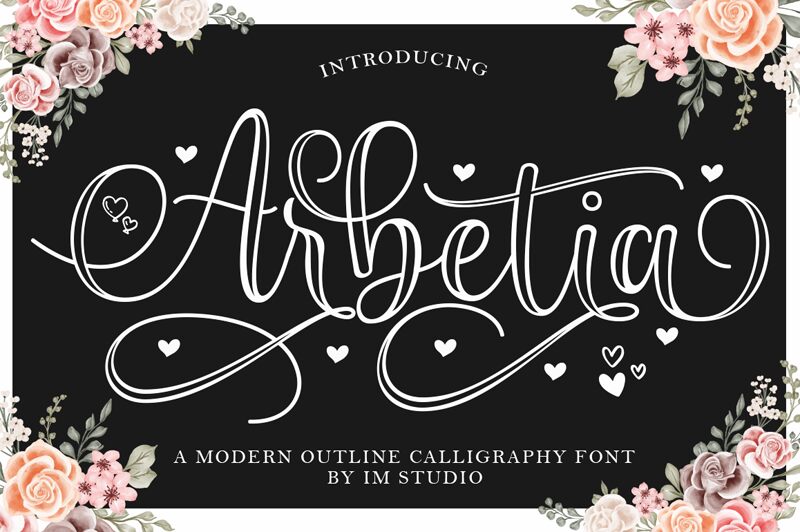
Arbetia font by IM Studio is a free outlined calligraphy font with an elegant and flowing handwritten style. Despite its massive overall size, Arbetia appears neat, balanced, and extraordinarily sophisticated. Each letter is unique in design to give the most artistic text possible to users of this font.
Use Arbetia outlined typeface for greeting cards, invitation cards, certificates, headings in books or magazines, posters, social media designs, quotes images, website banners/headers/footers, company branding projects (including logos), product packaging/labels design etc.
Arbetia